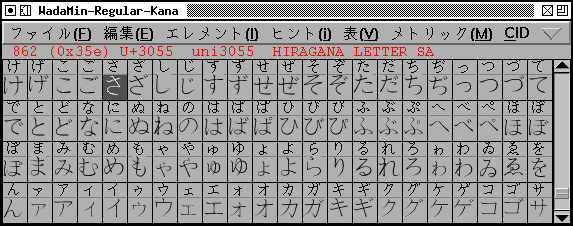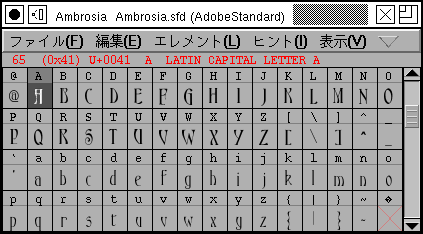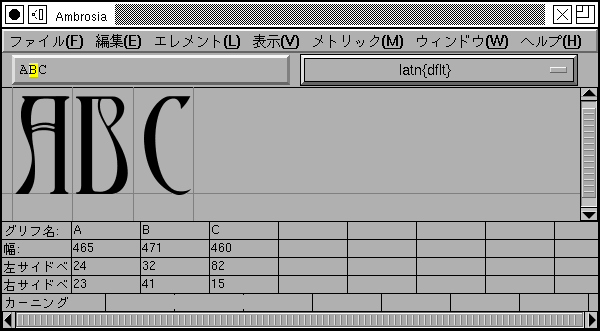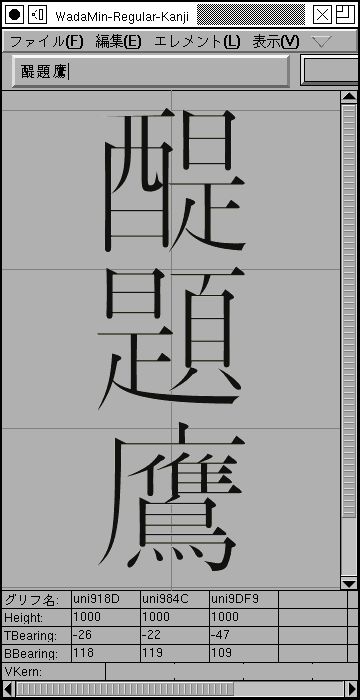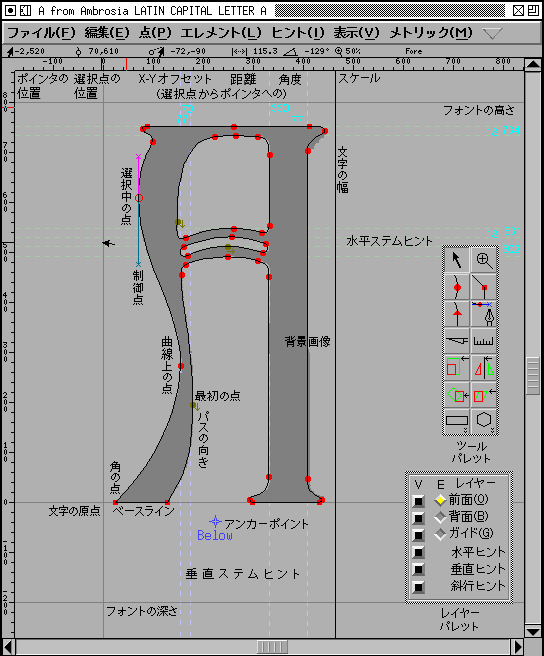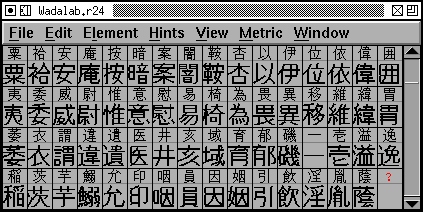
FontForge allows you to create and modify postscript, truetype and opentype fonts. You can save fonts in many different outline formats, and generate bitmaps.
A font editor is a progam designed to creat and modify fonts.
The most obvious aspect is that it is a drawing program like FreeHand, Inkscape or Illustrator which lets you draw the outlines of your letters. Unlike other drawing progams it expects you to draw many pictures at once (one or more for each letter) and collects them into a database.
It allows you to describe the way these pictures interact with each other (if you put one picture after the other then they should normally be separated by a certain distance -- the font's metrics, or if these two pictures are placed adjacent to one another then they turn into a third -- the font's ligatures, and so on).
Finally a font editor will bundle up all the pictures you have drawn, and all the metadata about how those pictures fit together, and will turn that bundle of stuff into a font that your computer can use to display text.
Most simply a font is a collection of glyphs. But computer fonts must contain more than this, at the least they must also contain information on how to map an input string of bytes into an output display of visual glyphs. This mapping is called an encoding. Many fonts will also contain rules for how adjacent glyphs should be arranged. For instance, in fonts for the latin alphabet, there is often a rule saying that if "f" and "i" are adjacent then a special glyph, a ligature of "f" and "i" should be used instead. Fonts for latin letters generally do not require such rules (but can be enhanced by them), fonts for other scripts like arabic require them.
What's the difference between a character and a glyph?
A character is a concept and a glyph is a reification of that concept. The
letter "A" is a character, while
are all glyphs that represent an "A". In latin fonts there is often a single
glyph for every character and a single character for every glyph, but not
always -- in renaissance printing there were two glyphs for a lower-case
s,
the short and the long
s. Whereas a ligature is an example of a glyph that represents two (or more)
characters. In arabic most of the letters (characters) have at least four
different glyphs, the appropriate glyph being determined by the letters around
it. Here are four forms of the arabic character "seen"
.
What is an outline font? What is a bitmap font?
Each glyph in a font has a shape and there are various ways of describing that shape on a computer. PostScript and truetype fonts generally describe the outline of the shape and then color in the interior of that outline, this coloring process is called rasterizing. On the other hand a bitmap font describes each glyph by drawing a picture of that character on a rectangular grid of pixels. There is a third type, a stroked font, where each stem of the glyph is represented by one line down the center of the stem, and the line is later drawn with a certain width. Most of the time we will not deal with stroked fonts directly (the Expand Stroke command can be used to turn them into outlines), but if you wish to edit stroked fonts, see the section on multi-layered editing.
An outline is composed of a set of contours or paths. In the picture on the above left the letter A is described by three different paths. The main one is on the outside and the two smaller ones are internal. Each of these paths is composed of a series of (Bézier) splines and line segments. FontForge can handle cubic and quadratic splines. PostScript fonts use cubic splines, TrueType fonts use quadratic (SVG fonts can be either).
Each cubic spline is defined by four points, two of which mark the end points of the spline and two more to describe the slope of the spline at those end points. Here are two cubic splines with all their points shown:
The points which describe the slope are called control points. They are represented here (and in fontforge) by little colored x's. Moving a control point will change the shape of the spline, but it will not alter where the spline begins or ends.
A series of splines
and lines are joined together to make a path. There are several possible
ways to make these joins as is shown in the example to the right. In each
case we have three points in approximately the same relative positions. The
three points are joined by splines or lines, but the type of joins alters
the appearance of the connections.
In the first case there are no control points and the result is two straight lines, in the second case there is a line and a curved spline which are tangent at their point of intersection, in the third case there are two splines which are again tangent at their point of intersection. The point of intersection in the first case is called a corner point, and the incoming and outgoing splines or lines may be in any orientation with respect to each other. This is represented in fontforge by a square box. In the second case the point of intersection is called a tangent point, it is represented by a triangle. The third case is a curved point and is represented by a circle.
You can change the width and left/right bearings of a glyph, either by dragging in the upper part of the window or by entering an appropriate number in the lower.
You can also provide kerning information for any two adjacent glyphs. You can view how various OpenType features affect the glyph stream
Note
that in Hebrew, or Arabic (or any other right to left alphabet) the glyphs
will start on the right and run to the left. While in CJK fonts you may want
to see things arranged vertically.